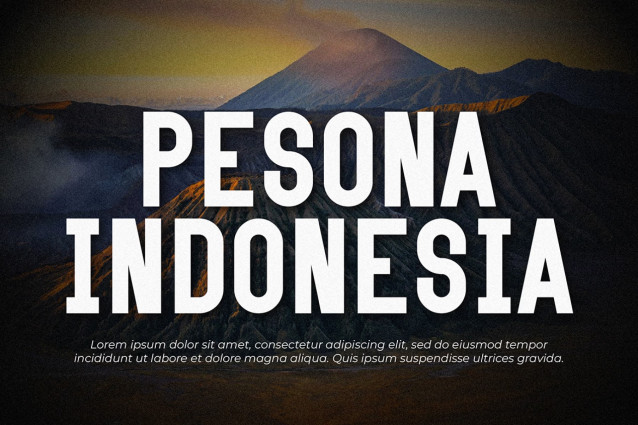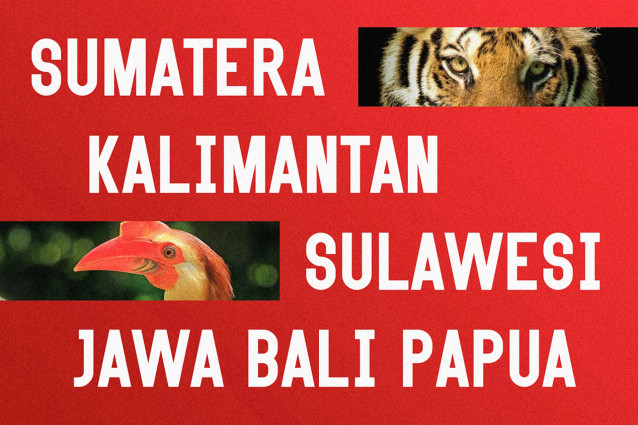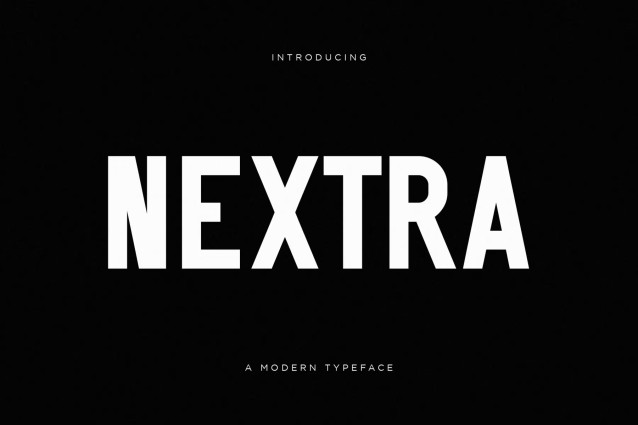
Nextra Font
Nextra is a bold, condensed sans-serif display font with a blocky, athletic structure. Its tall, high-impact letterforms feature subtle chamfered corners and flat-sided curves, giving it a solid, industrial presence that commands attention in any layout.
Use it for sports branding, fitness apparel, event posters, editorial headlines, and energetic social posts. It is particularly well-suited for large-scale signage, packaging, and video thumbnails where maximum readability and strong visual weight are required.